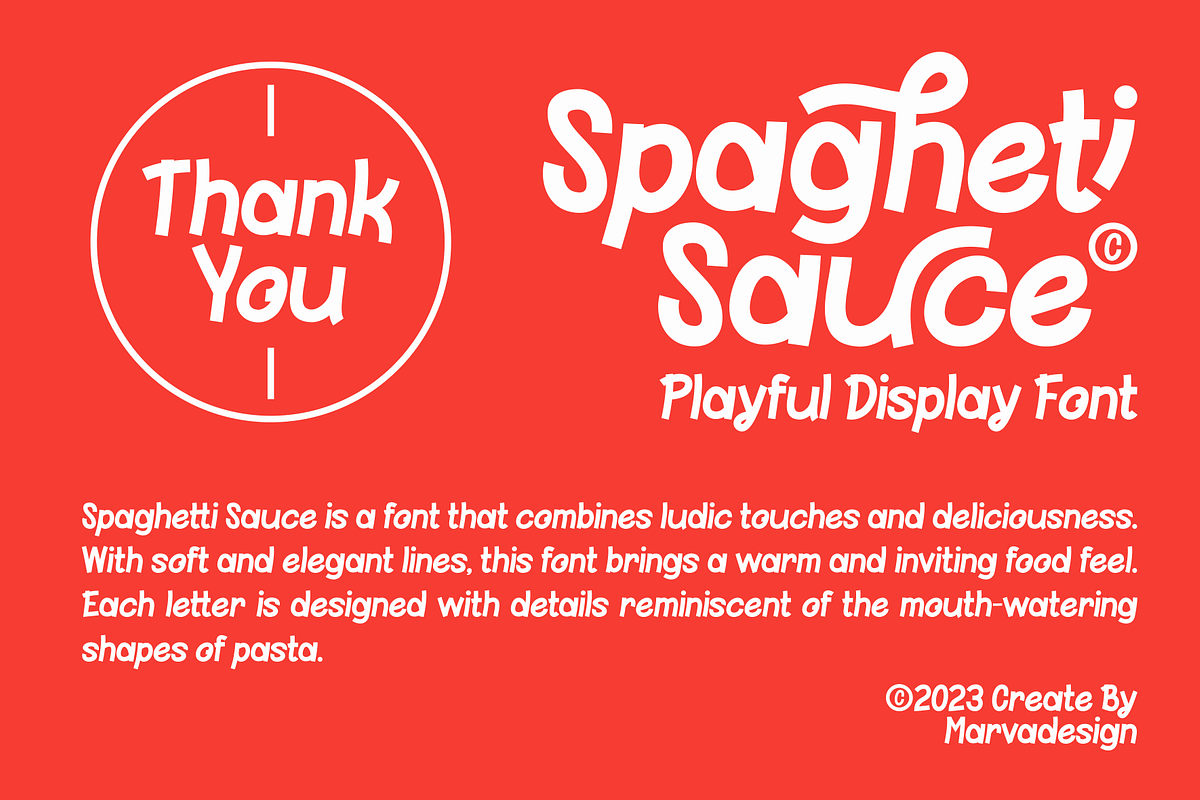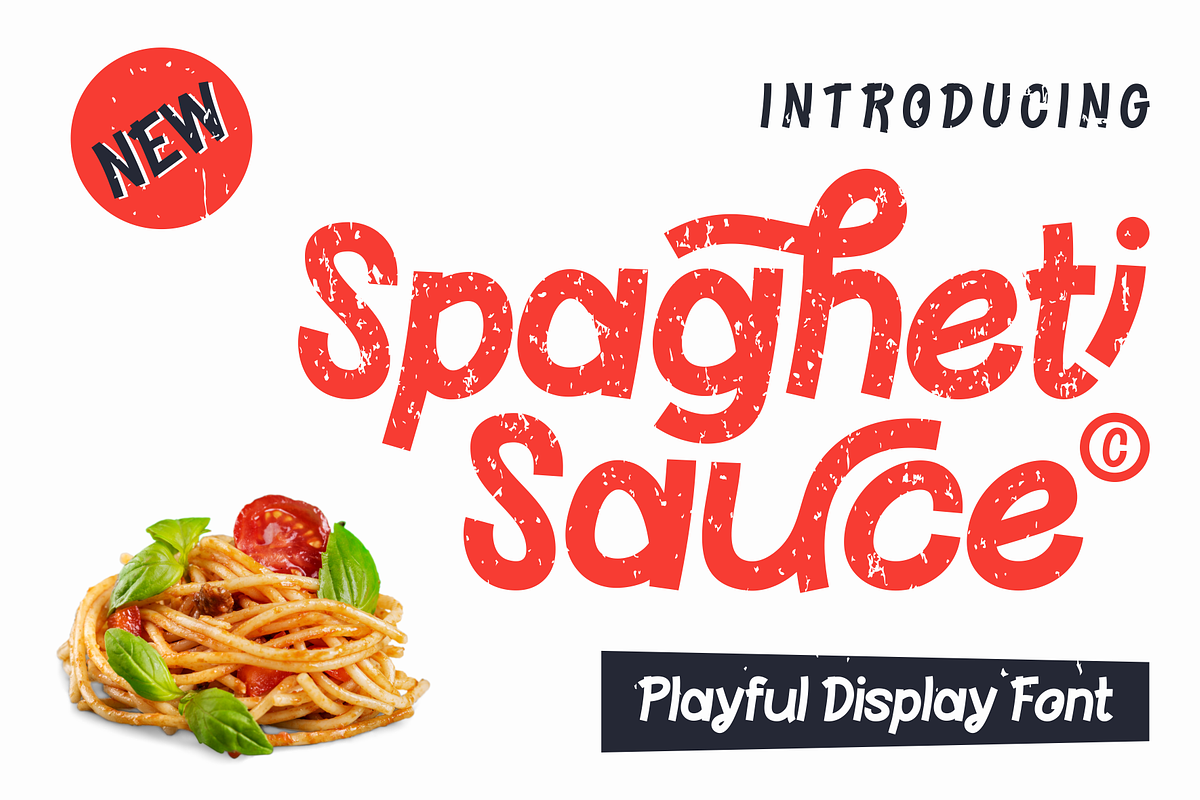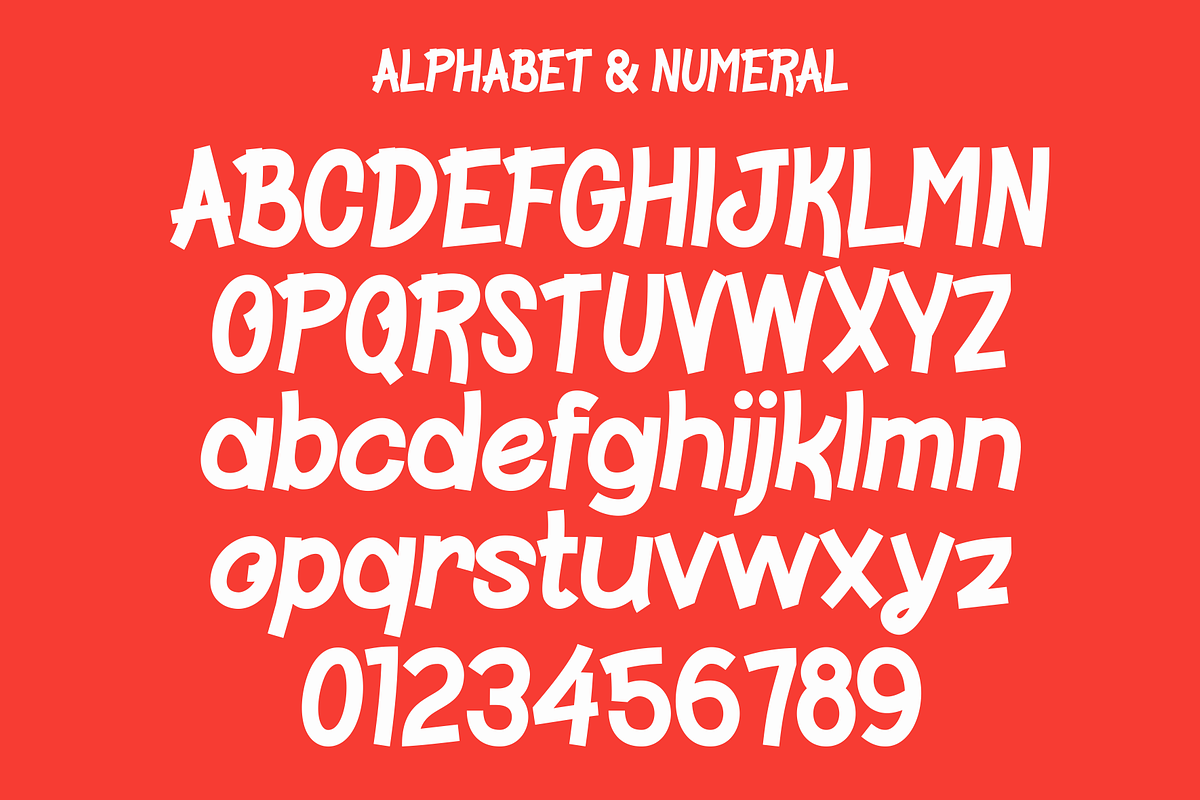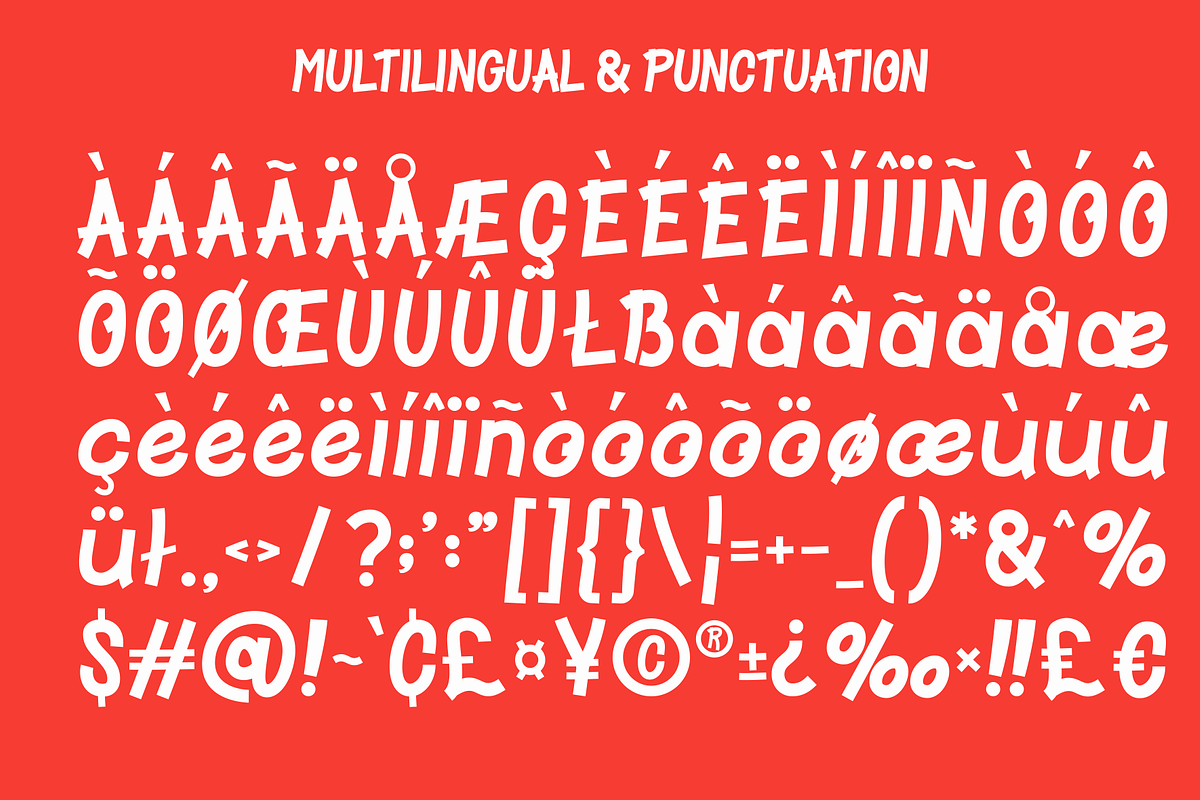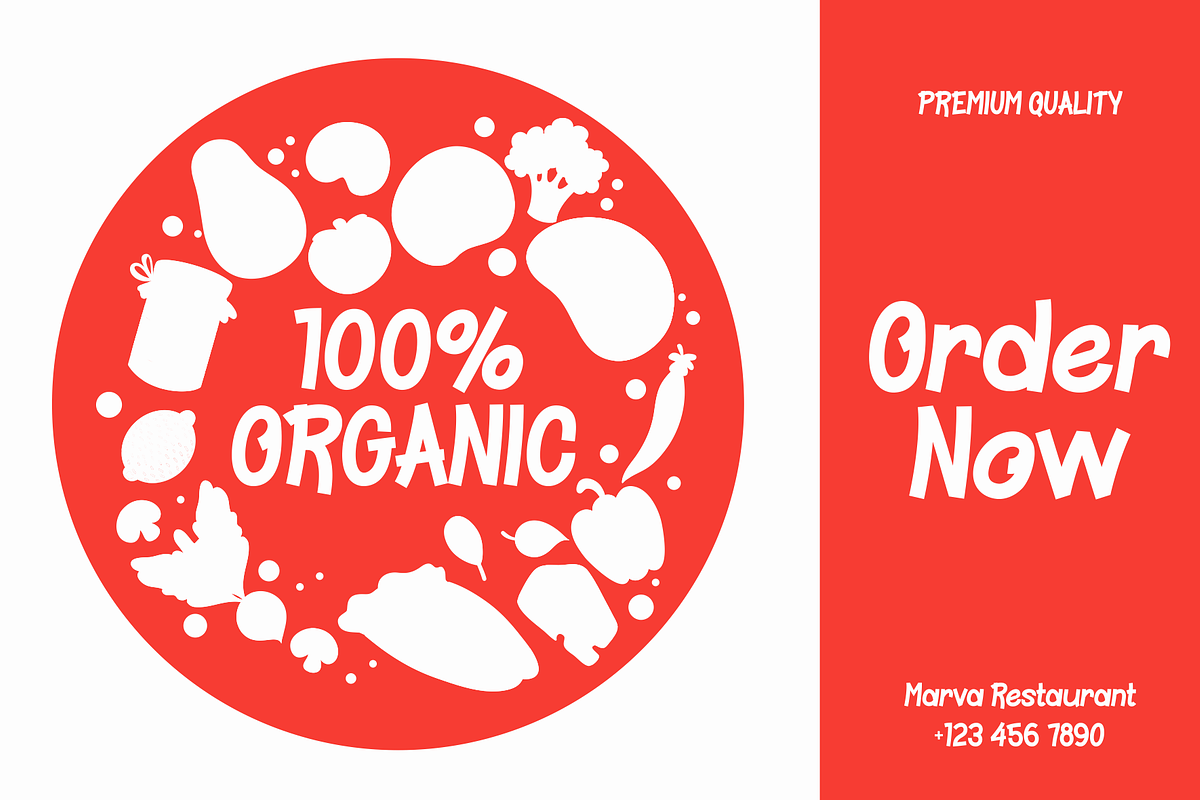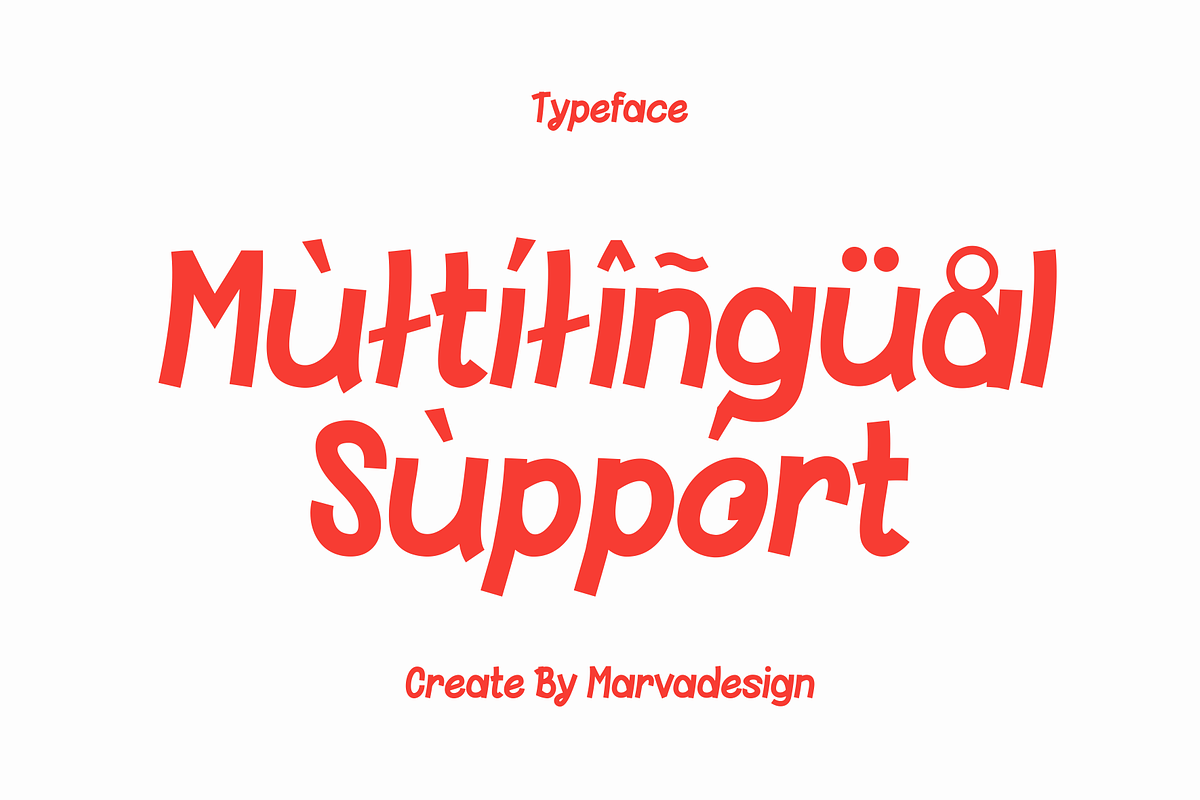
Spagheti Sauce - A Modern Playful
Introducing our new product Spagheti Sauce Font A Modern Playful Display Font Spagheti Sauce Font - A Modern Playful Display Font authentic display font. The font is suitable for any branding project like logo, Template Design, Product and many more. outstanding in a wide range of contexts.